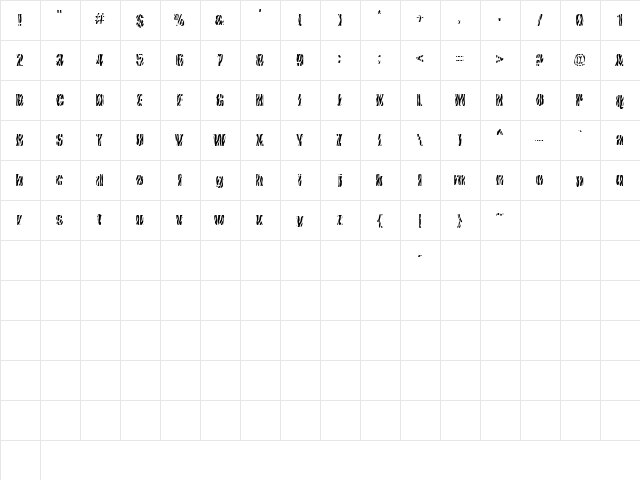
Crushed Regular
Design Context for Crushed Typeface
Crushed is a composed and adaptable typeface that performs quietly and consistently across a wide range of design contexts.